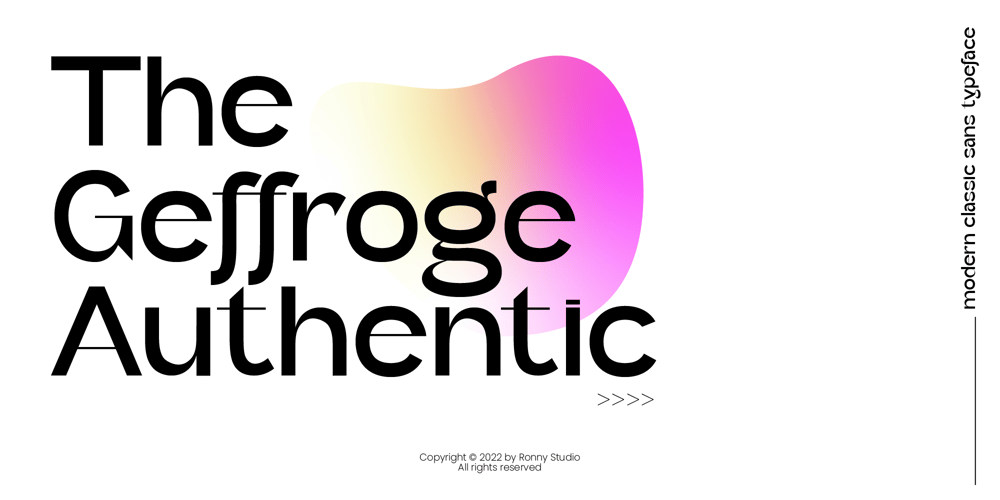
Geffroge Authentic Font Family was designed by Rony Rizki Jaya and published by Ronny Studio. Geffroge Authentic contains 2 styles and family package options. Geffroge Authentic is an elegant modern classic Sans Serif font. This font is impressive and features a clean and elegant font, professionally shaped, and as a result, it will easily match a variety of creations that require a different touch. Add it with confidence to your projects, and you’ll love the results. This typeface is perfect for elegant logos, branding, travel promotions, layout magazines, beauty products, product packaging, quotes, or simply as a stylish text overlay onto any background image.2 Font Style:- Regular- ItalicGeffroge Authentic Features:- Uppercase- Lowercase- Numbers & Punctuation- Ligature- Multilingual Support- Simple installationAll features and special characters of this font are included in one file. So that it is easily accessible by using a program or software that supports opentype such as Adobe Illustrator, Adobe Photoshop, and Adobe Indesign). This font is also very easy to use as it is compatible for all supported software even for non-opentype.Please comment us if you have any questionsThank you and have a nice day.Thank You